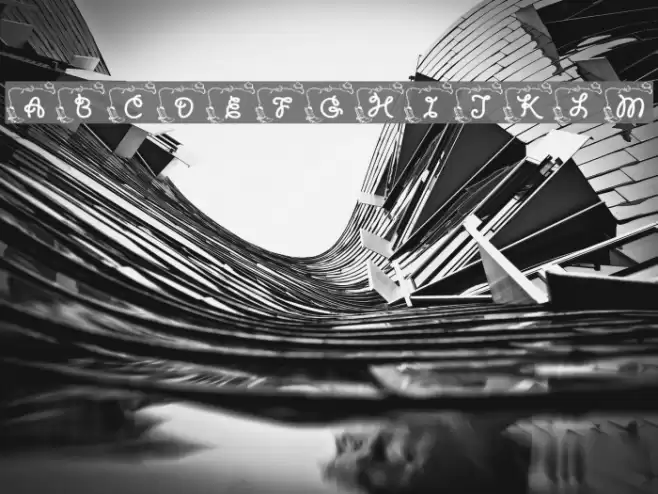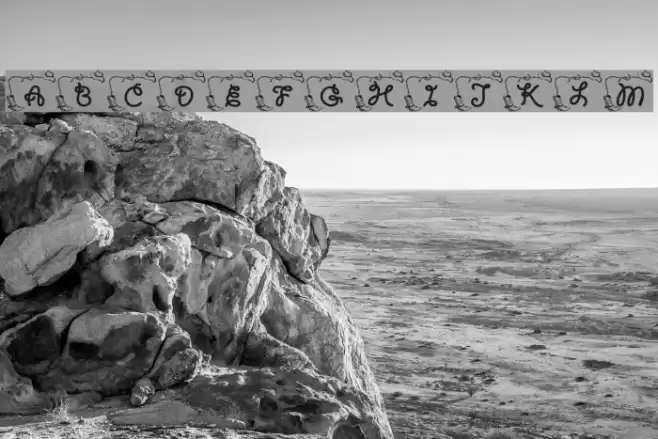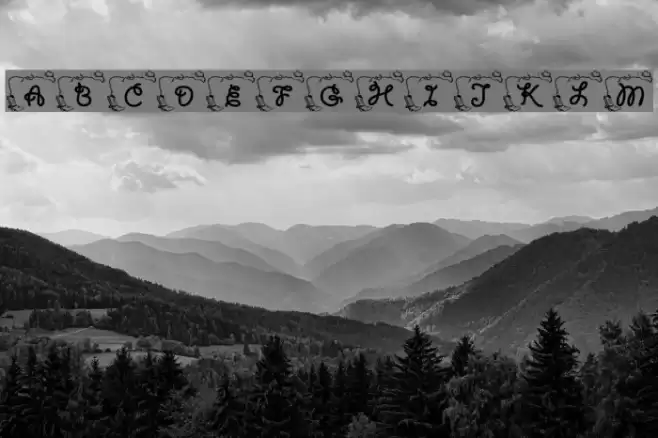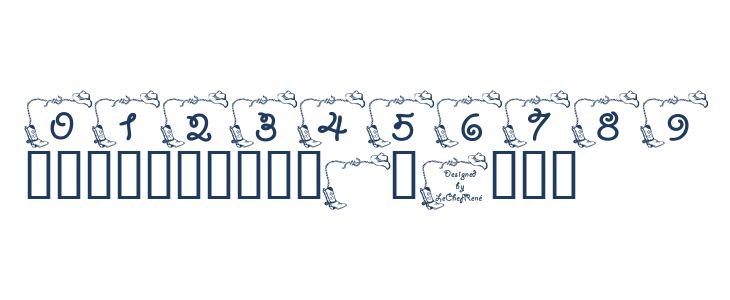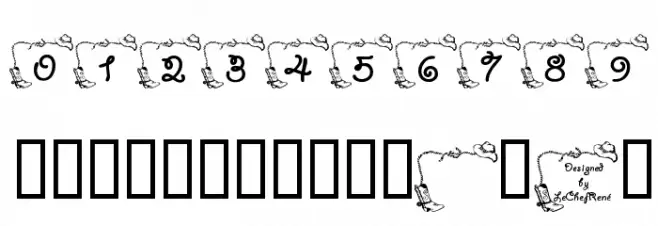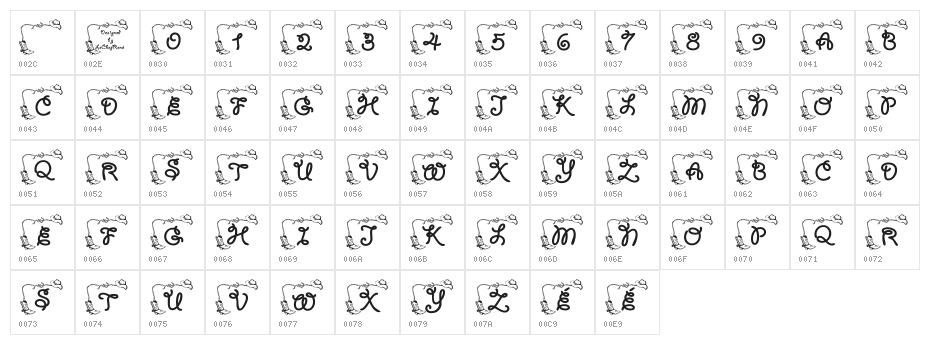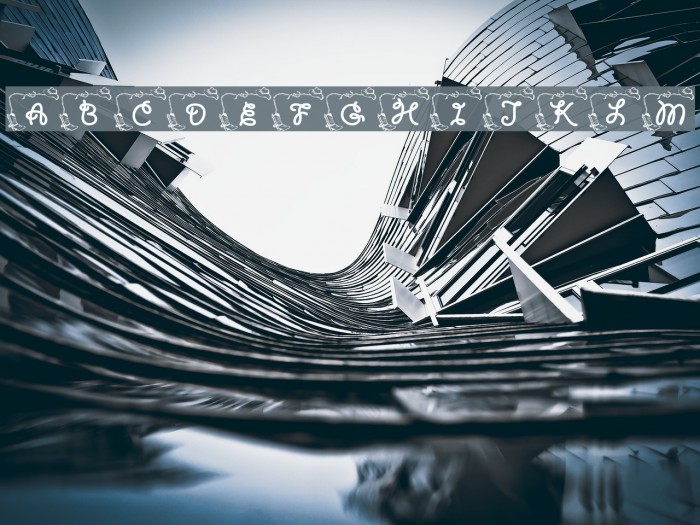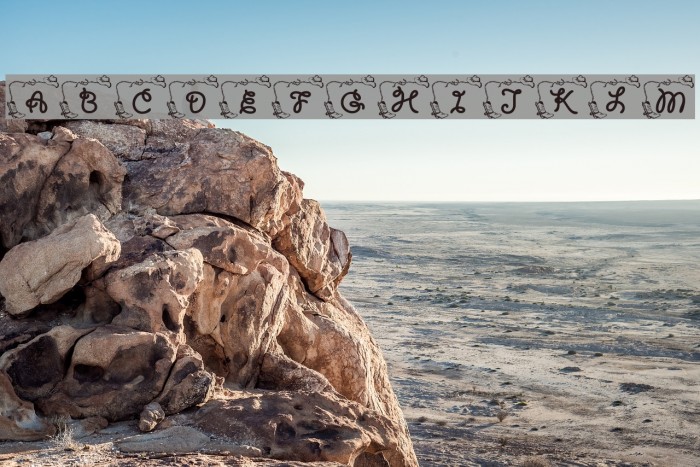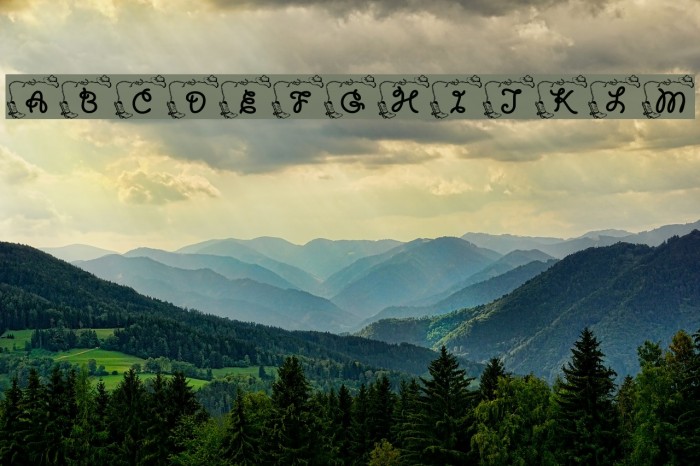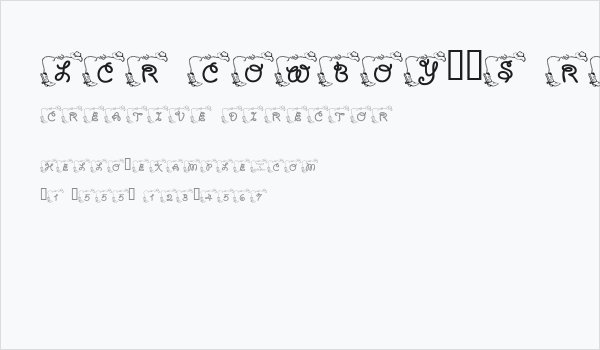
LCR Cowboy's Rest Font
LCR Cowboy's Rest Description
This decorative font features a unique Western-themed design, incorporating elements like cowboy boots and ropes around each character. The letters are bold and stylized, with intricate details that evoke a rustic, adventurous feel. Each character is framed with a rope motif, adding to the overall cowboy aesthetic. The font is highly decorative, making it suitable for thematic projects that require a touch of the Wild West. Its playful and detailed design makes it stand out, perfect for capturing attention in creative and thematic contexts.
A decorative Western-themed font with cowboy motifs and rope details from Uncategorized fonts.
- Proposed Projects: Ideal for Western-themed posters, event invitations, themed restaurant menus, and creative branding projects.